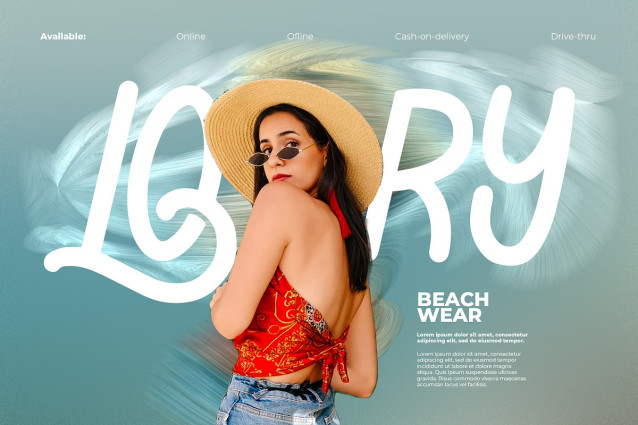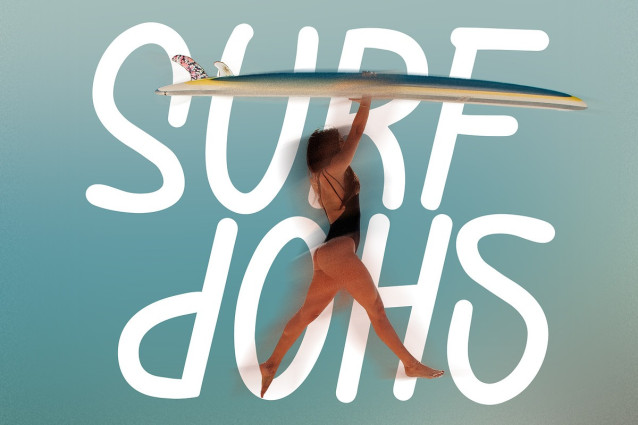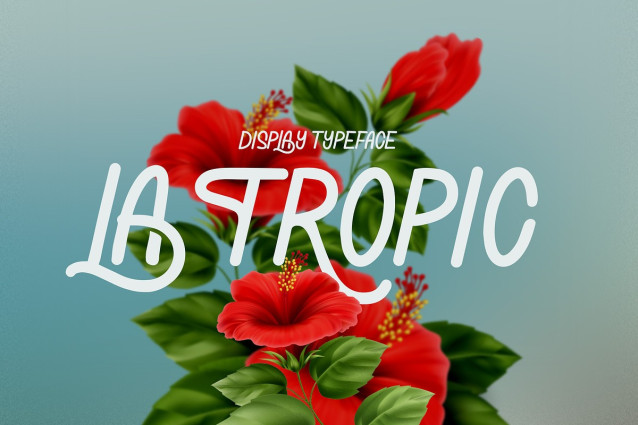
La Tropic Summer Typeface Font
Introducing La Tropic
A groovy tropical handwriting font, embodies craftsmanship with a natural flow. Its chill and happy style brings crisp modernity to your designs. This font is perfect for inclusive accessibility, adding a touch of boho and Mediterranean vibes to websites, packaging, logos, and more. Explore the unique and original charm of La Tropic, reminiscent of sea, ocean, and the joyous atmosphere of Summer solstices.
Experience the superior features of La Tropic – a font that invites you to relax and embrace the harmony of hot Surfing Beach, Resort Holiday, Travel Vocation, and Paradise Party aesthetics. Whether designing surfboards, signs, or holiday cards, La Tropic’s versatility shines through, providing a unique and original choice for a wide range of projects.